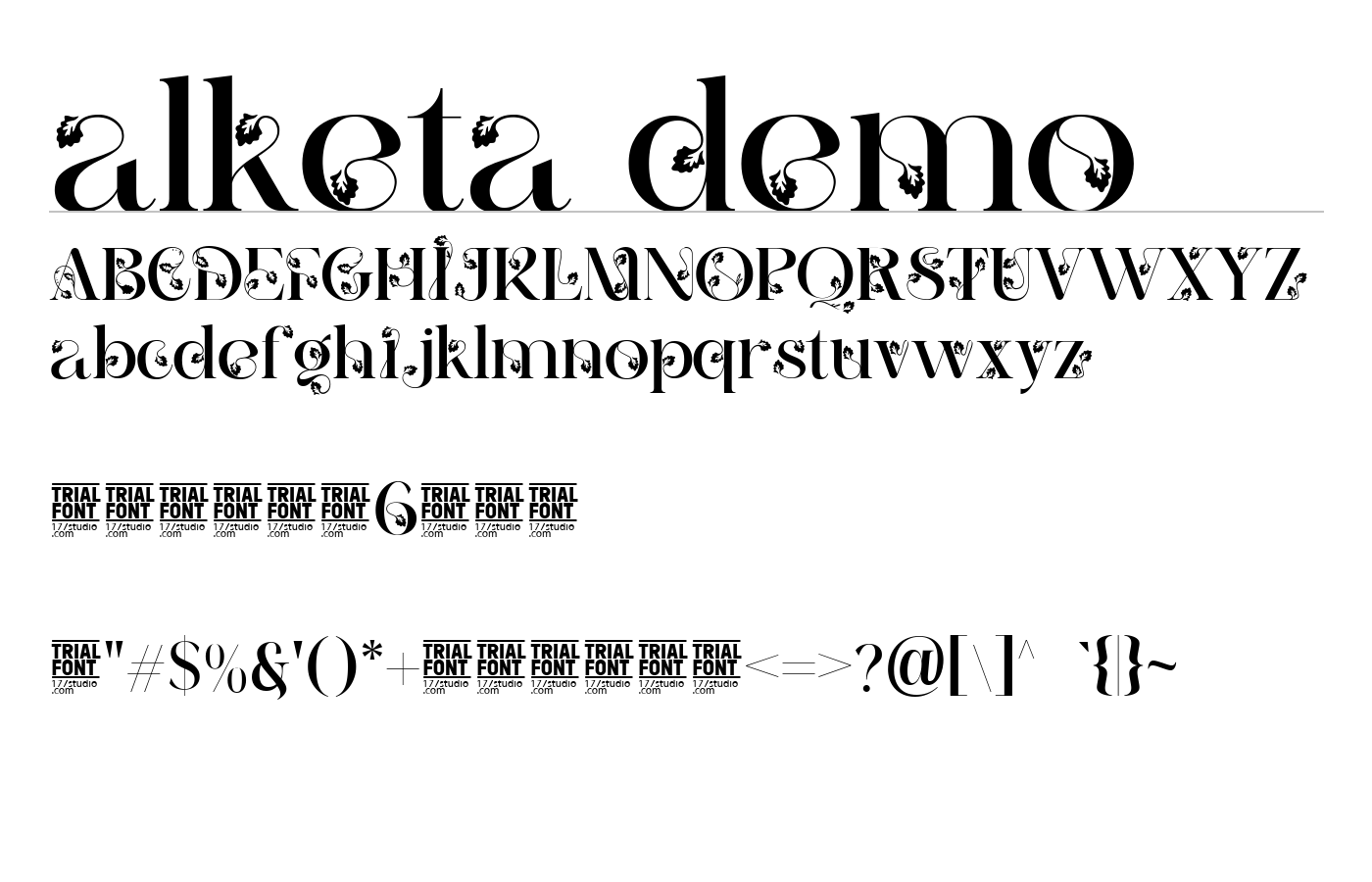
Alketa Demo is a decorative serif font with a high contrast between thick and thin strokes, featuring elegant flourishes with leaf-like ornaments that give it a whimsical, artistic flair. Its tall, narrow letterforms and distinctive botanical details make it a perfect choice for creative branding, fashion, and editorial design that seeks a sophisticated yet playful touch. This font works best in logos and headlines where its intricate style can truly stand out and captivate viewers.